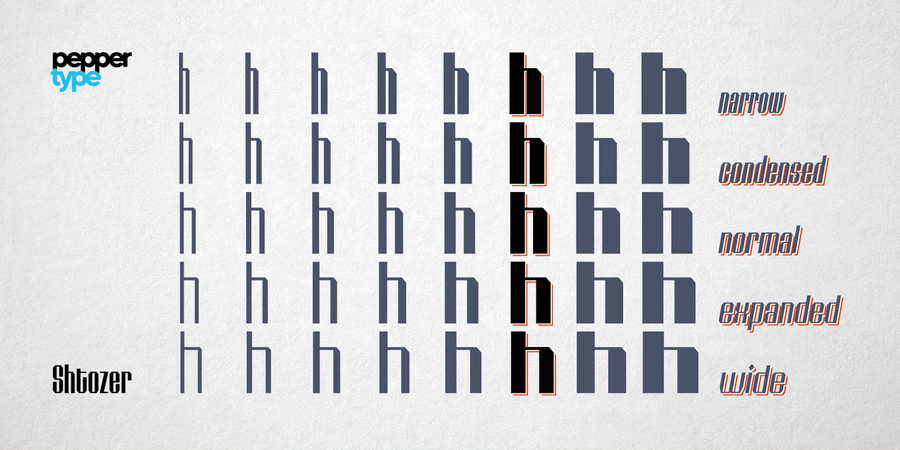
About Shtozer 600High contrast version of Shtozer. A retro-themed display typeface based on designs of 1960s and 1970s and additionally inspired by Cyrillic ornate lettering Vyaz. It comes in 8 weights, with 5 width variations each, all accompanied with respective obliques – making 80 styles altogether. Shtozer is a font family with extensive language coverage including Cyrillic script. It also contains numerous OpenType features and alternate glyphs to vivify the typesetting. The typeface was designed by Oleh Lishchuk in 2020.
Features of font family Shtozer 600The hit of the decade: